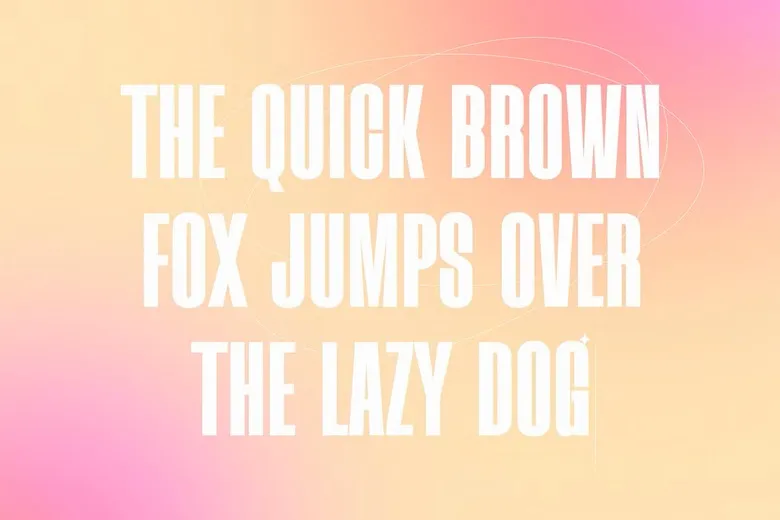
Shilage is contemporary and clean sans serif typeface, focused on usability and breadth. It is ideal and has clean lines and proportions that may be used to do branding, web design and editorial work. This typeface has a low visual profile, clean and minimalist appearance that infuses any work with a new, professional touch.